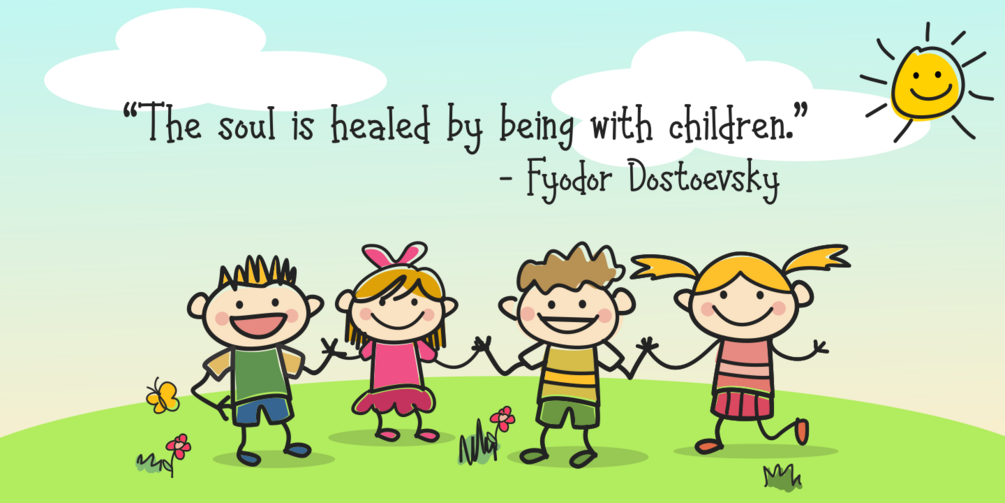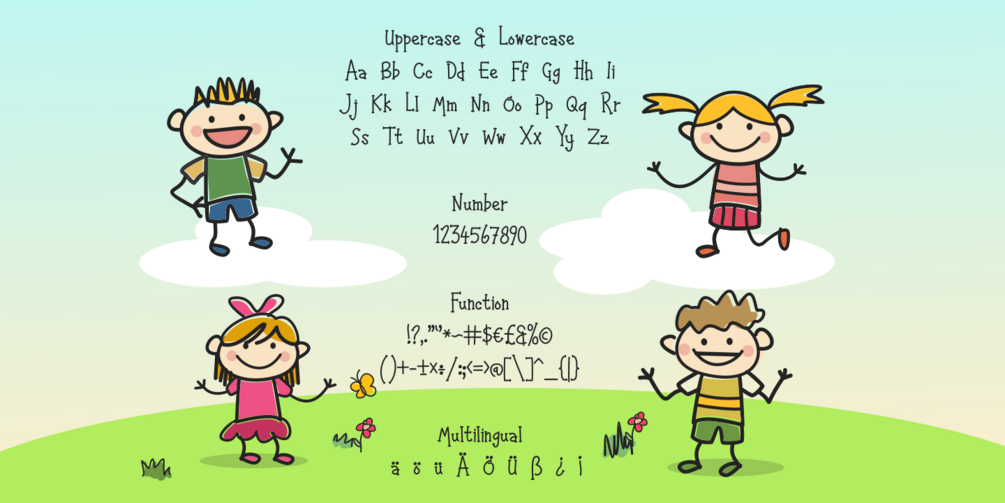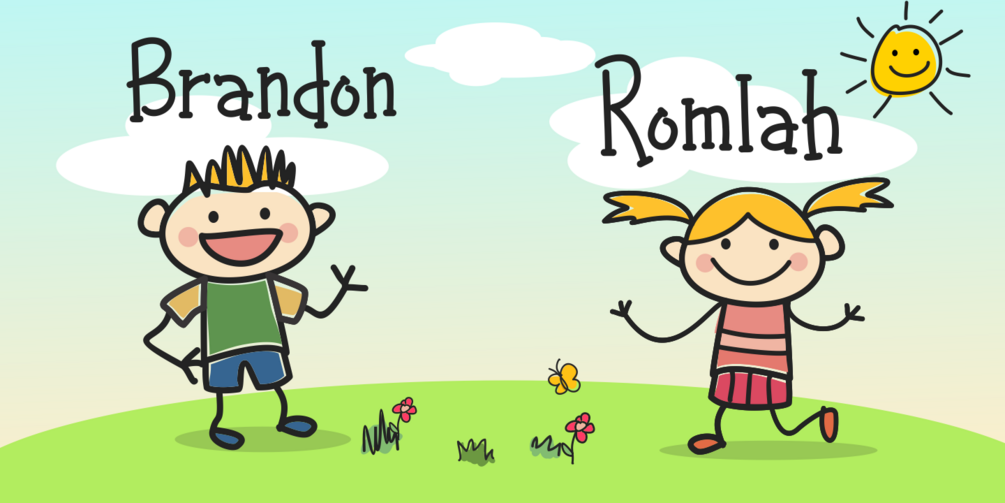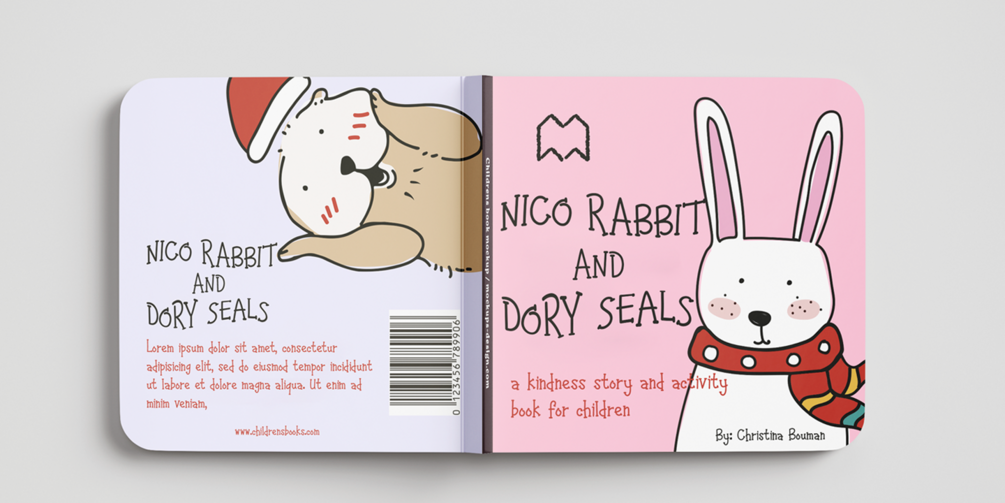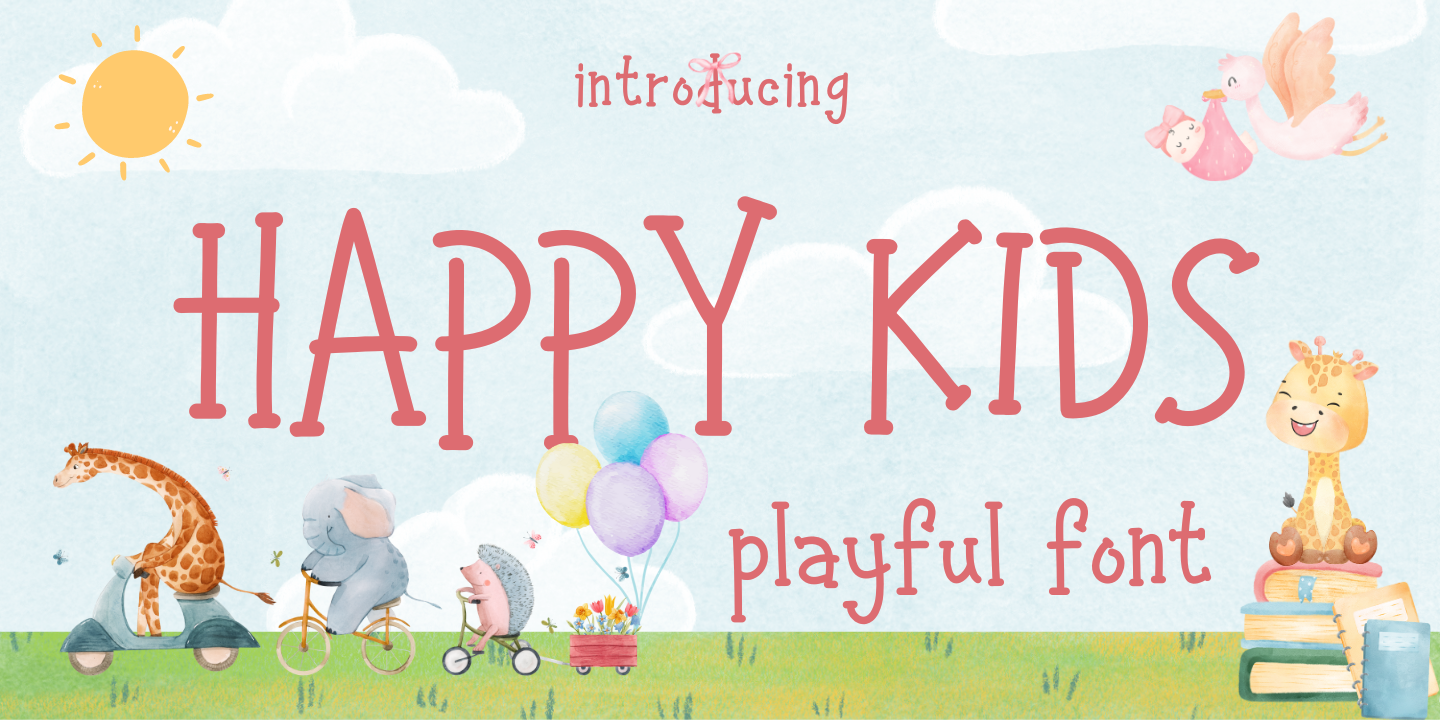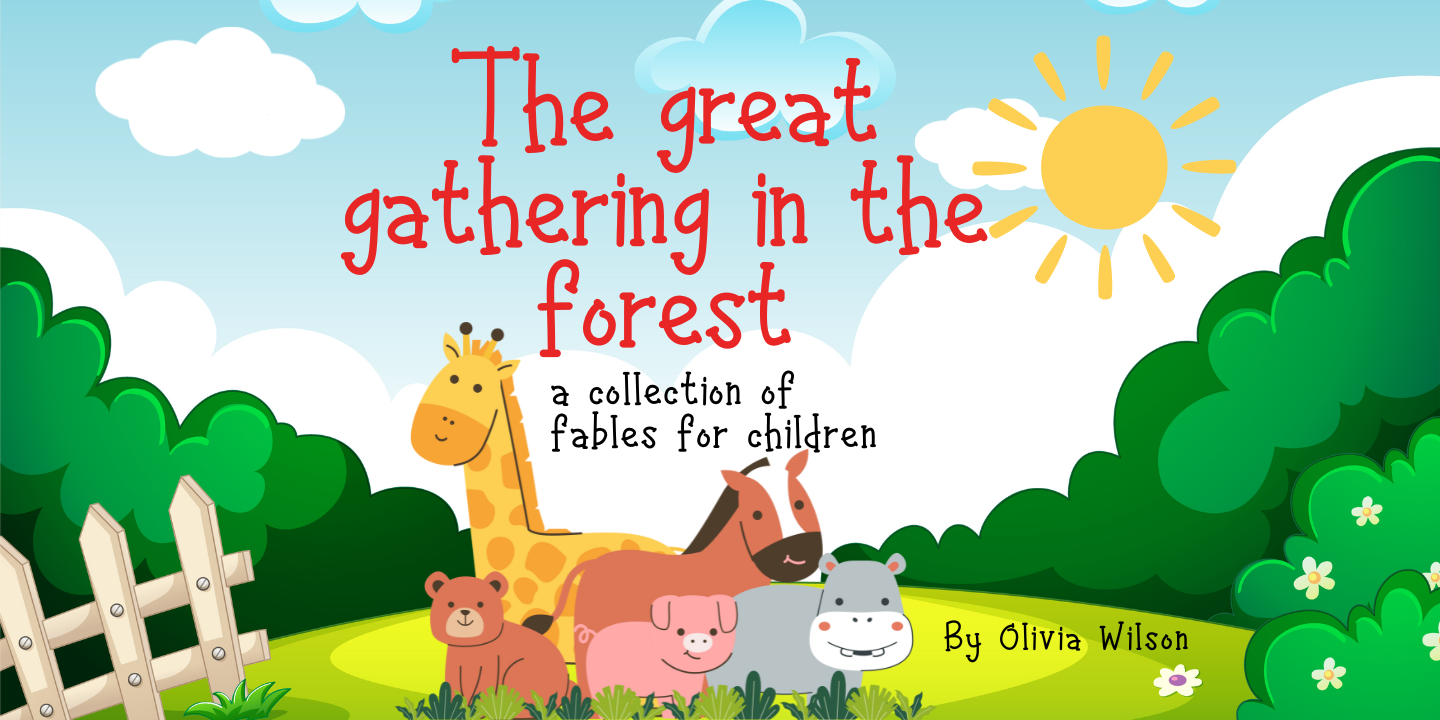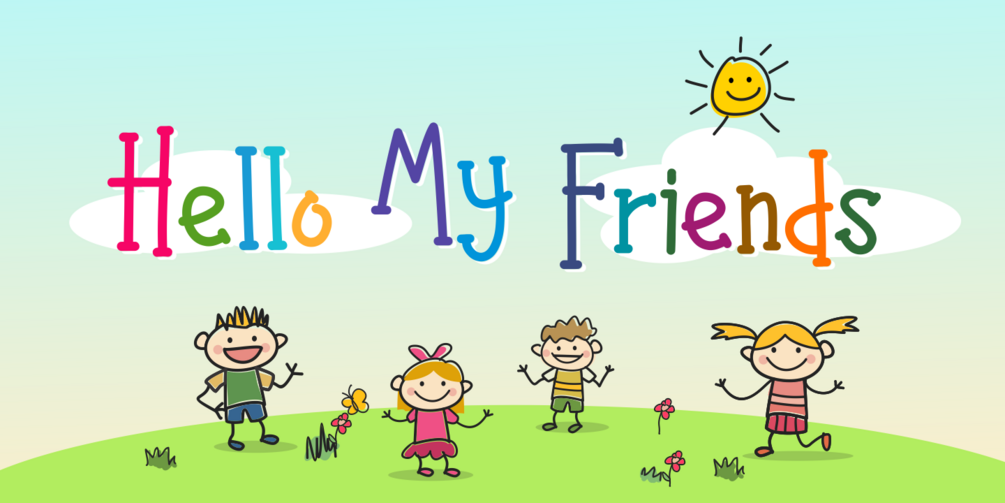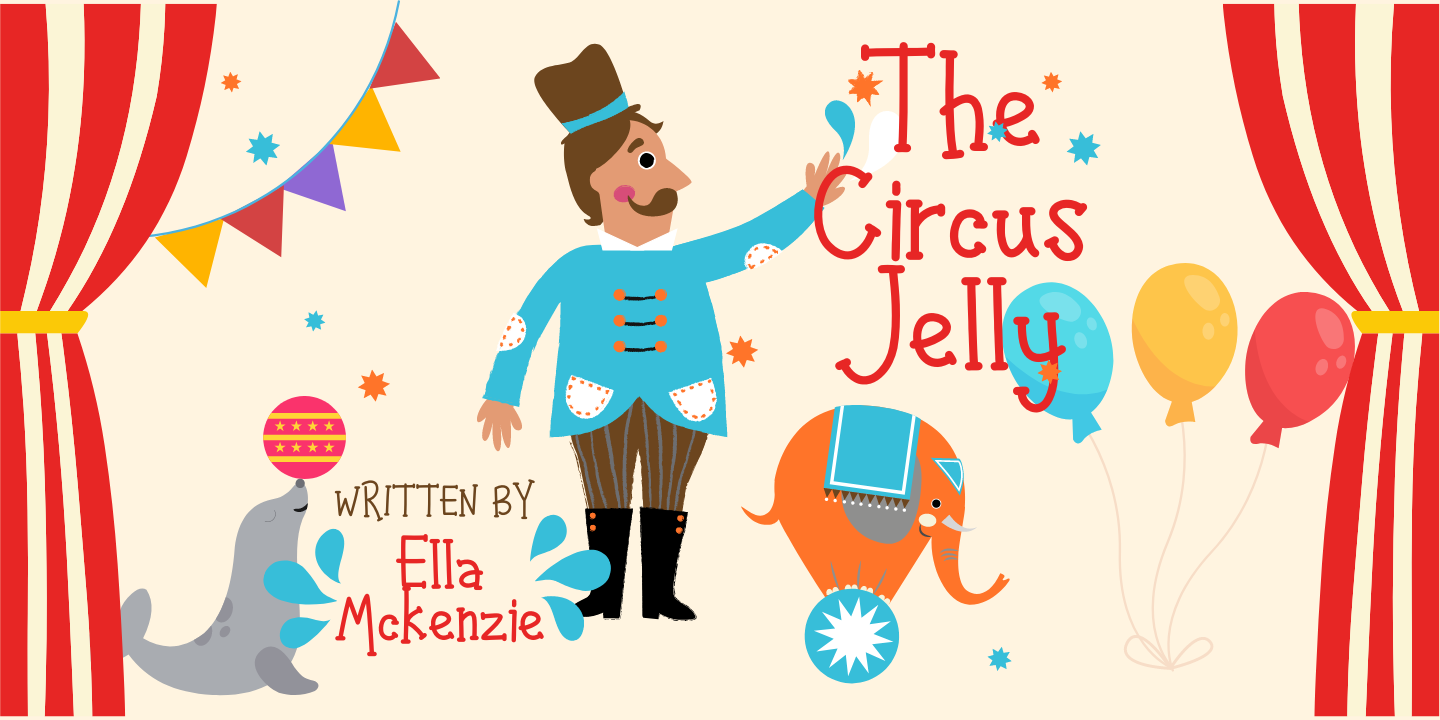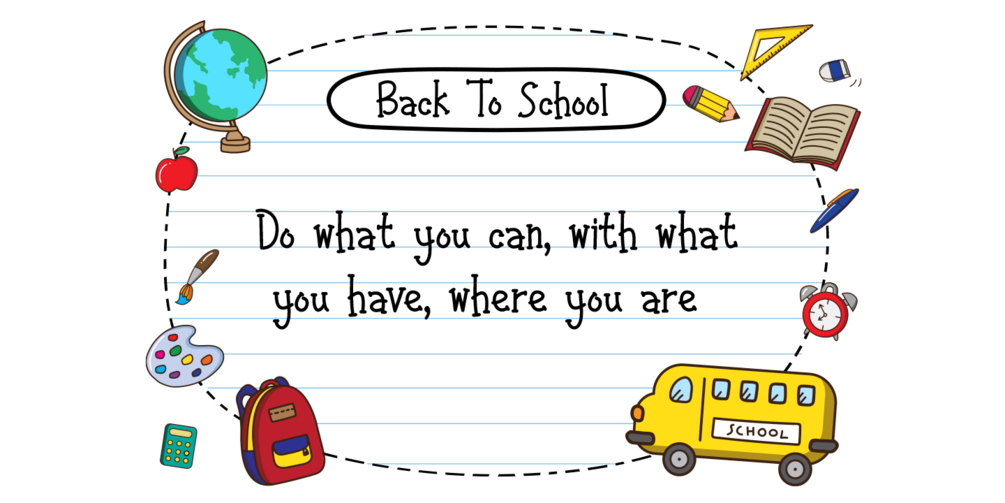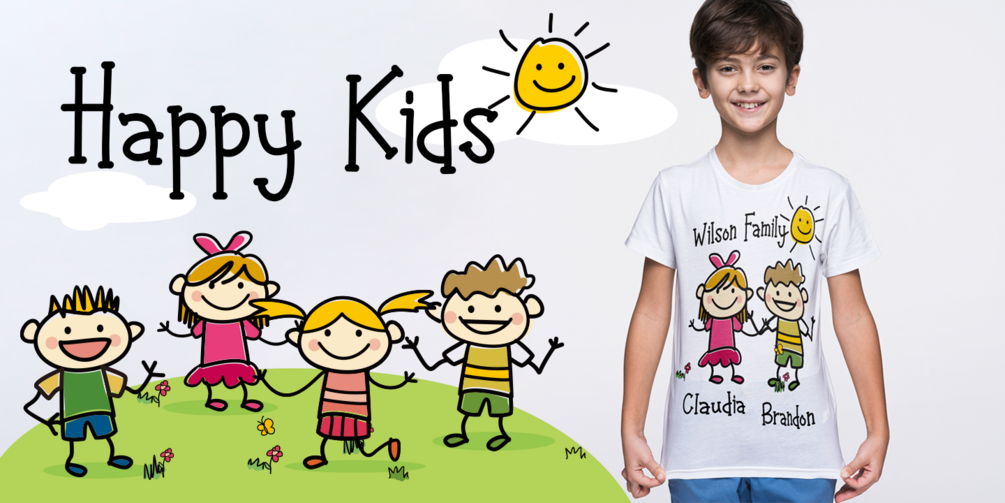
Happy Kids
Happy Kids embodies fun, playfulness, and authenticity. Featuring charming, whimsical characters, this font is sure to brighten up any creative project. From branding and comic design to children’s books, invitations, labels, and more, Happy Kids adds a joyful touch that takes your designs to the next level.